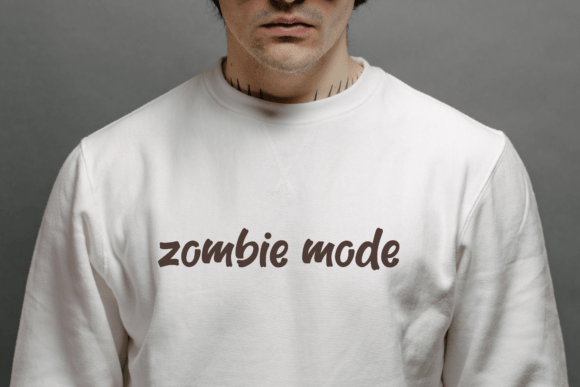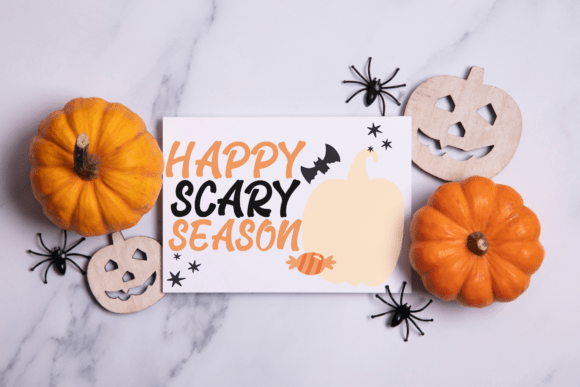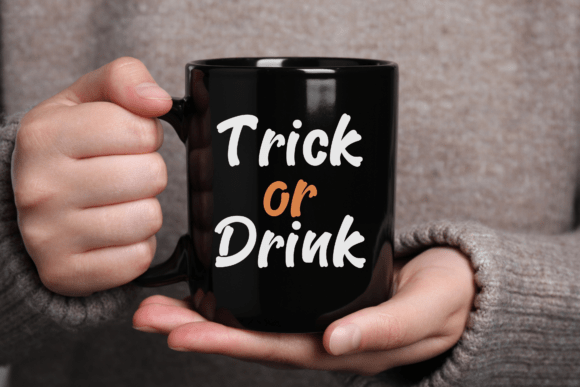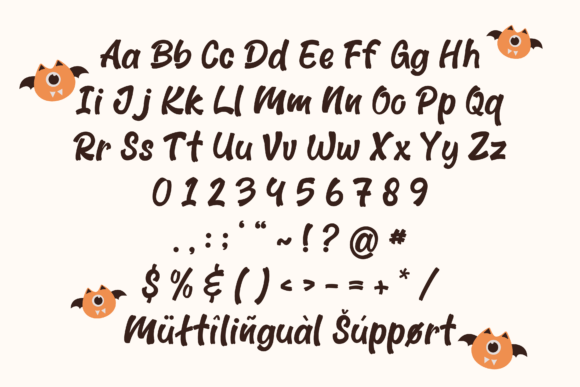
Introduction to October Spooklet Font
Say hello to October Spooklet — a charmingly creepy, hand-drawn font that adds just the right touch of spooky fun to your Halloween projects.
With playful curves and eerie elegance, it’s perfect for invites, crafts, merch, and more Whether you’re creating haunted house flyers, trick-or-treat signs, or cute spooky graphics, October Spooklet delivers a delightful mix of whimsy and wickedness — not too scary, just spooky enough.